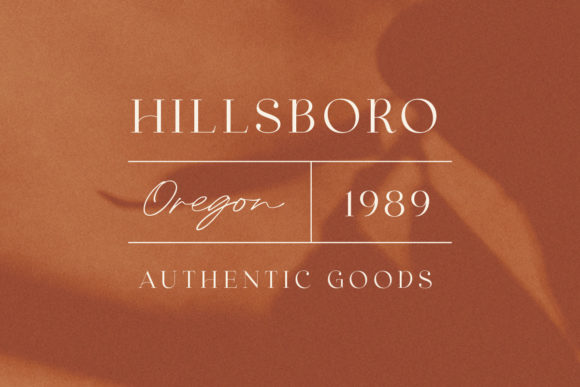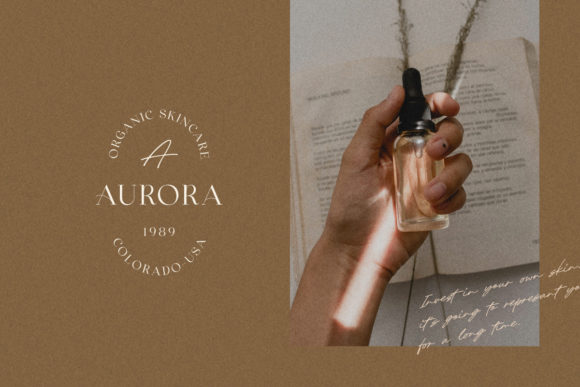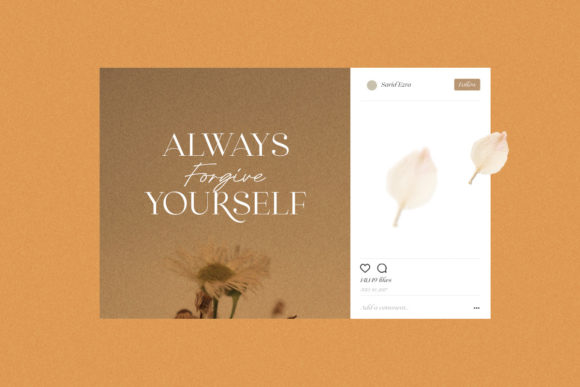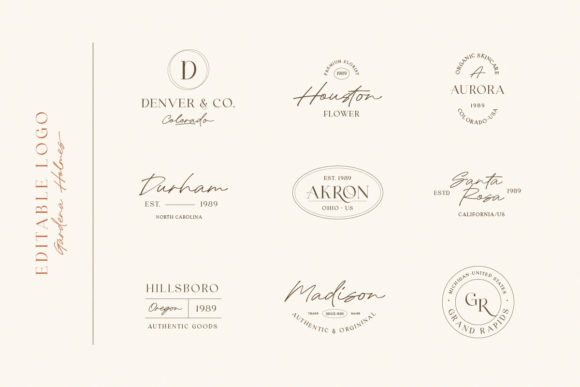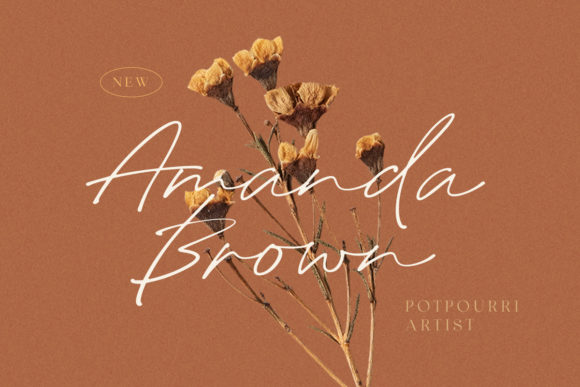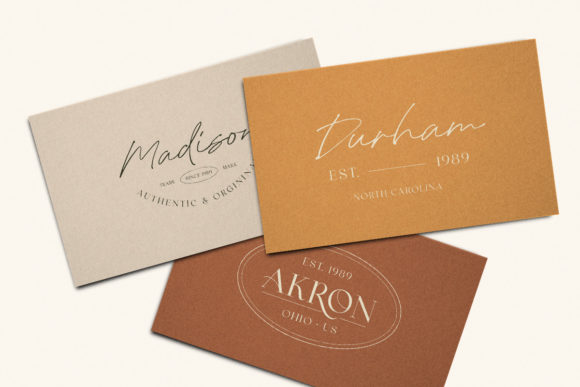
Gardena Holmes Font: Elevate Your Designs with this Lovely Duo
Are you a designer or crafter looking for a font that can add a touch of elegance and playfulness to your projects? Look no further than the Gardena Holmes Font, a versatile duo font that combines the classic charm of serif and script fonts. In this article, we’ll explore the features and benefits of Gardena Holmes, and why it’s a must-have for any creative looking to elevate their designs.
A Perfect Pair: Serif and Script Fonts
Gardena Holmes is a duo font that consists of two complementary fonts: a serif font and a script font. The serif font offers a classic, timeless look that’s perfect for body text, headings, and titles. The script font, on the other hand, adds a touch of elegance and sophistication, ideal for adding a personal touch to your designs. Together or apart, these fonts are incredibly versatile and can be used for a wide range of projects, from digital designs to print materials.
Gardena Holmes Font
One of the standout features of Gardena Holmes is its PUA (Private Use Area) encoding. This means that all glyphs and swashes are easily accessible, making it simple to add a unique touch to your designs. With PUA encoding, you can access a wide range of alternative characters, ligatures, and swashes, allowing you to experiment with different styles and effects.
Gardena Holmes offers endless creative possibilities for designers and crafters. Here are just a few ideas to get you started:
• Create stunning digital designs, such as social media graphics, blog posts, and email newsletters.
• Design beautiful print materials, like brochures, flyers, and business cards.
• Add a personal touch to your craft projects, such as handmade cards, scrapbooking, and journaling.
• Use Gardena Holmes to create eye-catching titles and headings for your website or blog.
Why Choose Gardena Holmes?
So why choose Gardena Holmes over other fonts? Here are just a few reasons:
• Unique and Versatile: Gardena Holmes offers a unique combination of serif and script fonts that can be used for a wide range of projects.
• Ease of Use: PUA encoding makes it easy to access all glyphs and swashes, saving you time and effort.
• High-Quality Design: Gardena Holmes is designed with high-quality and clarity in mind, ensuring that your designs look professional and polished.
• Support for Creative Projects: Gardena Holmes is perfect for supporting creative projects, such as crafting, scrapbooking, and digital design.
Tips for Using Gardena Holmes
Here are some tips for getting the most out of Gardena Holmes:
• Experiment with Different Styles: Try pairing the serif and script fonts together, or use them separately for different effects.
• Play with Swashes and Glyphs: Use the PUA encoding to access a wide range of swashes and glyphs, adding a unique touch to your designs.
• Mix and Match with Other Fonts: Combine Gardena Holmes with other fonts to create interesting and dynamic designs.
Gardena Holmes is a versatile and lovely duo font that’s perfect for designers and crafters looking to add a touch of elegance and playfulness to their projects. With its PUA encoding and high-quality design, Gardena Holmes offers endless creative possibilities. Whether you’re working on digital designs, print materials, or craft projects, Gardena Holmes is a must-have font that will elevate your designs to the next level.